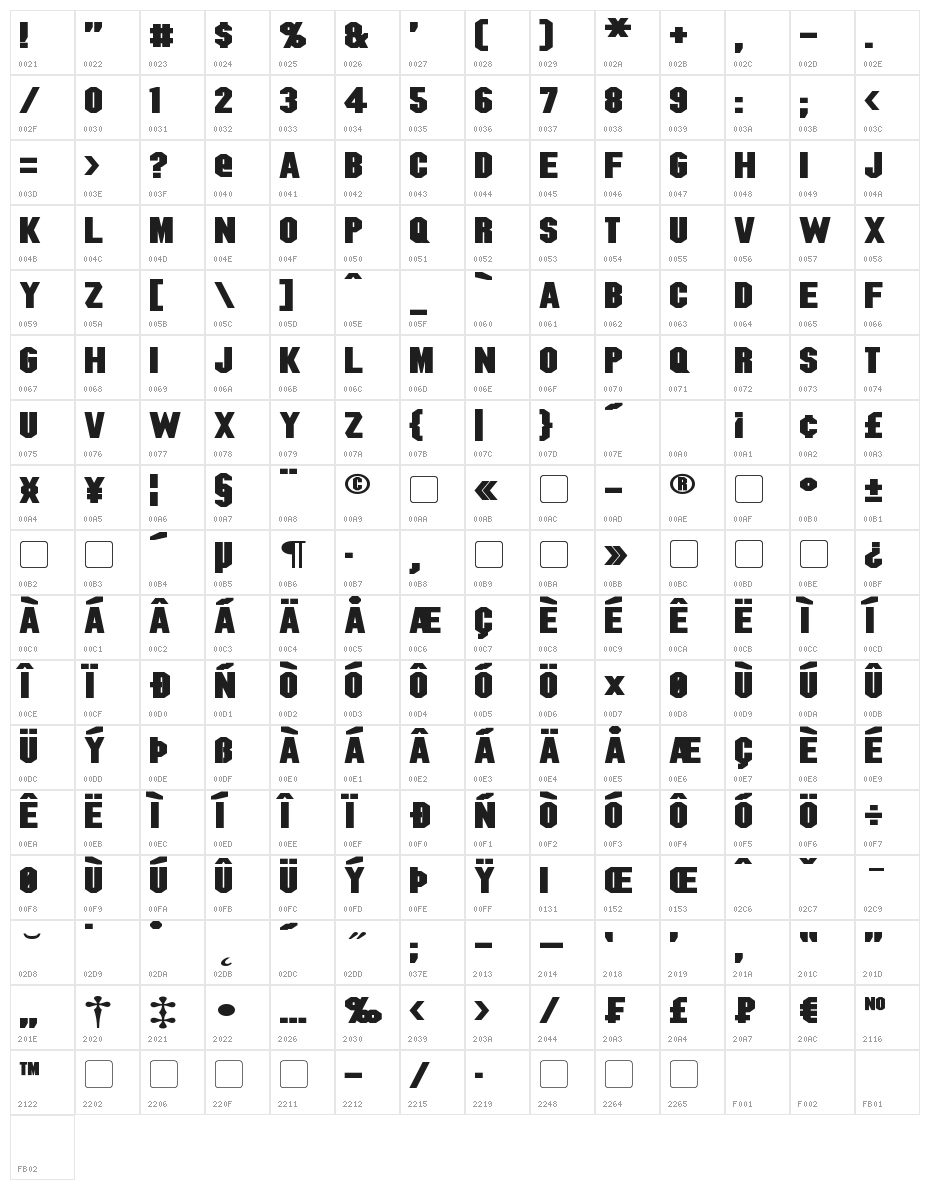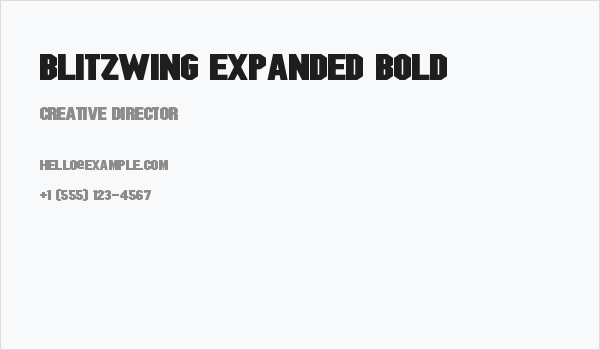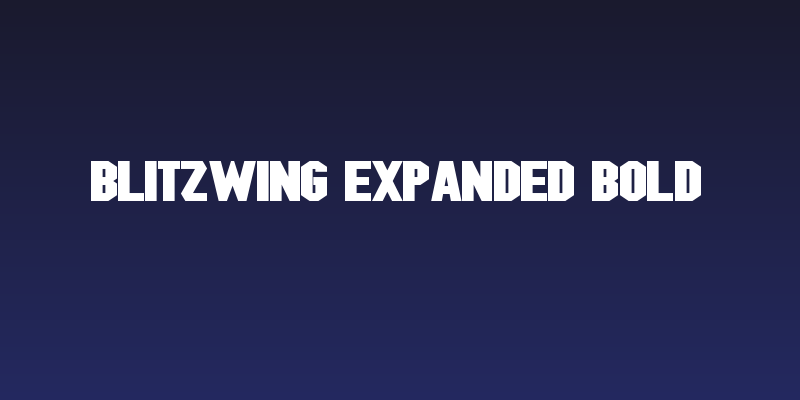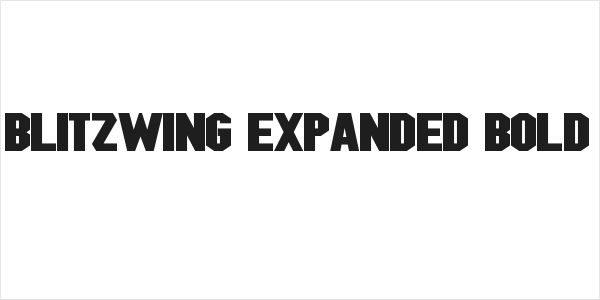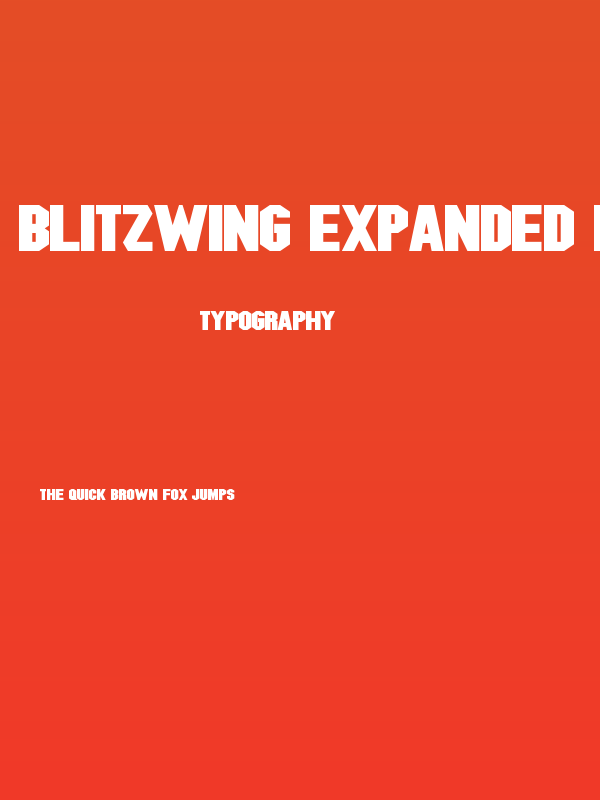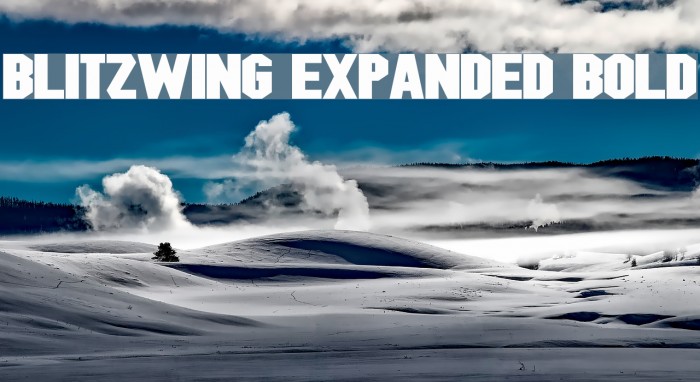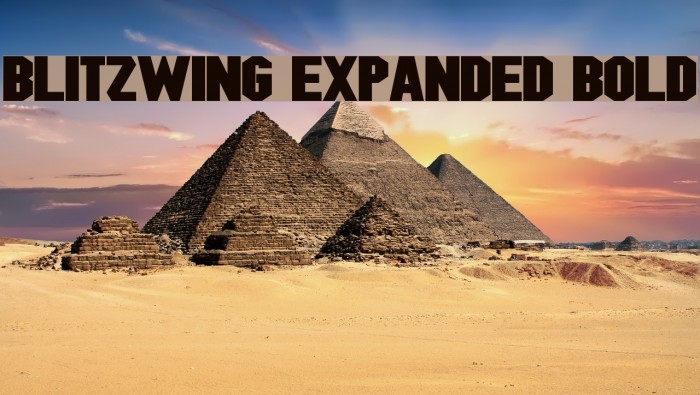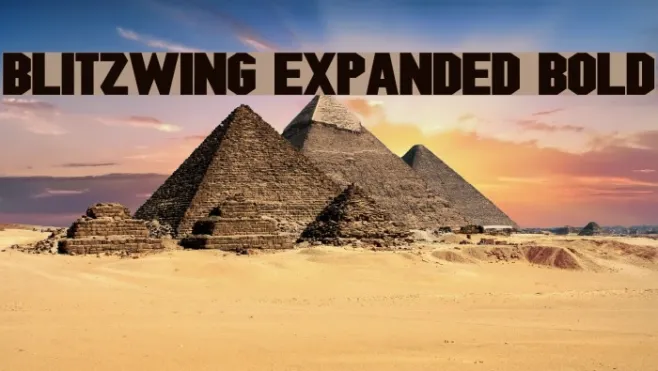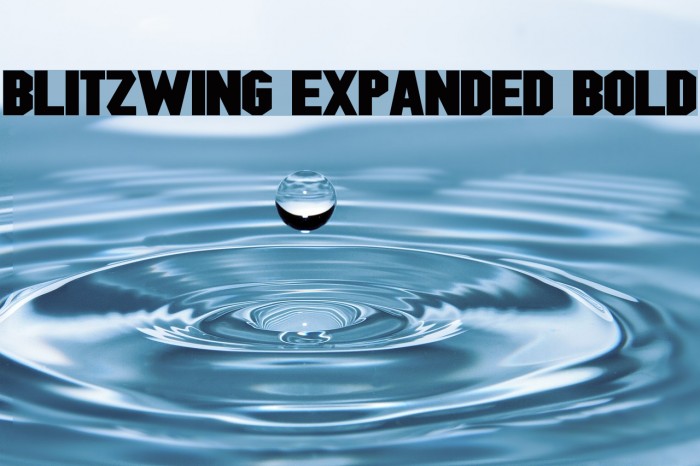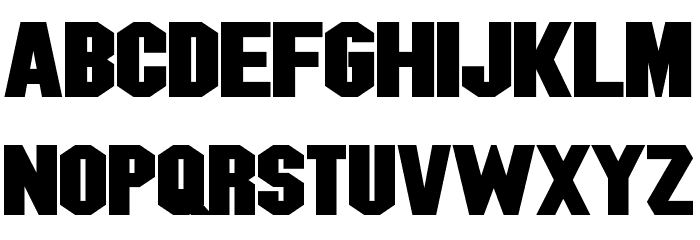
Blitzwing Expanded Bold Font
Blitzwing Expanded Bold Description
This font exhibits a bold and striking appearance, characterized by its expanded width and strong geometric shapes. The letters are uniformly thick, creating a powerful visual impact that commands attention. The angular design and sharp edges give it a modern and industrial feel, making it suitable for projects that require a bold statement. The numbers and special characters maintain the same robust style, ensuring consistency across all text elements.
| Proposed Projects | Ideal for headlines, posters, branding, and any design that requires a strong visual impact. |